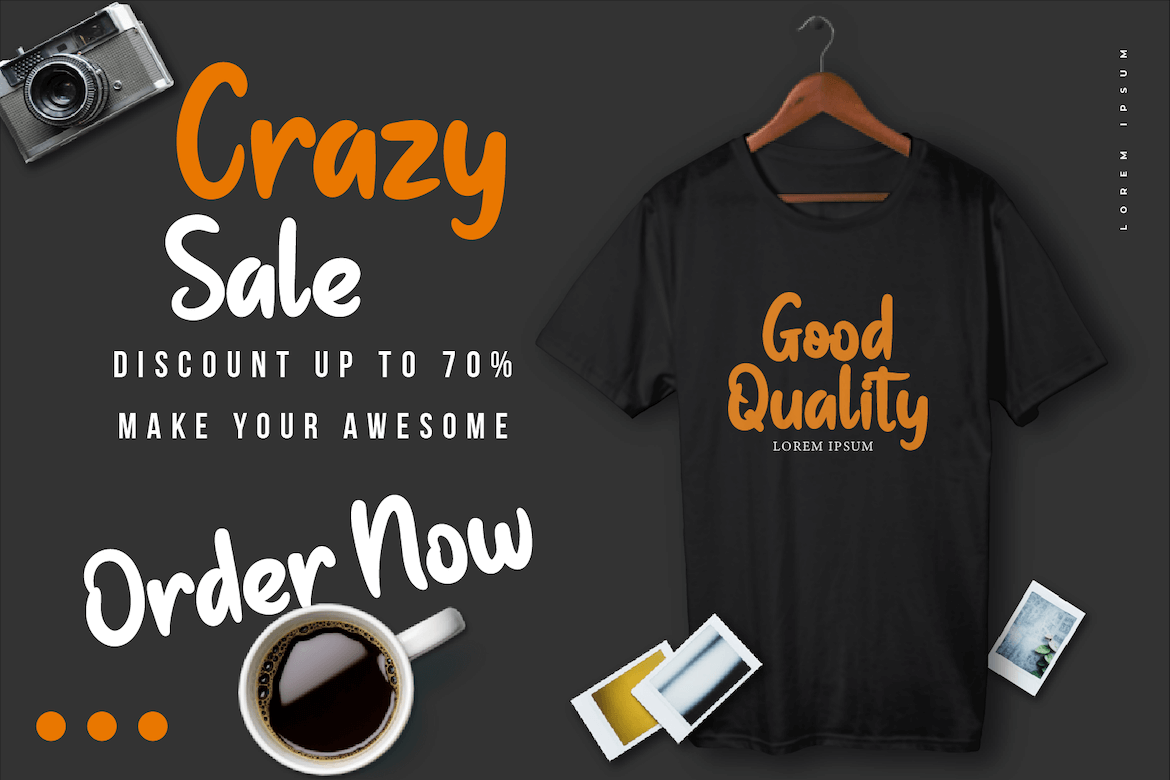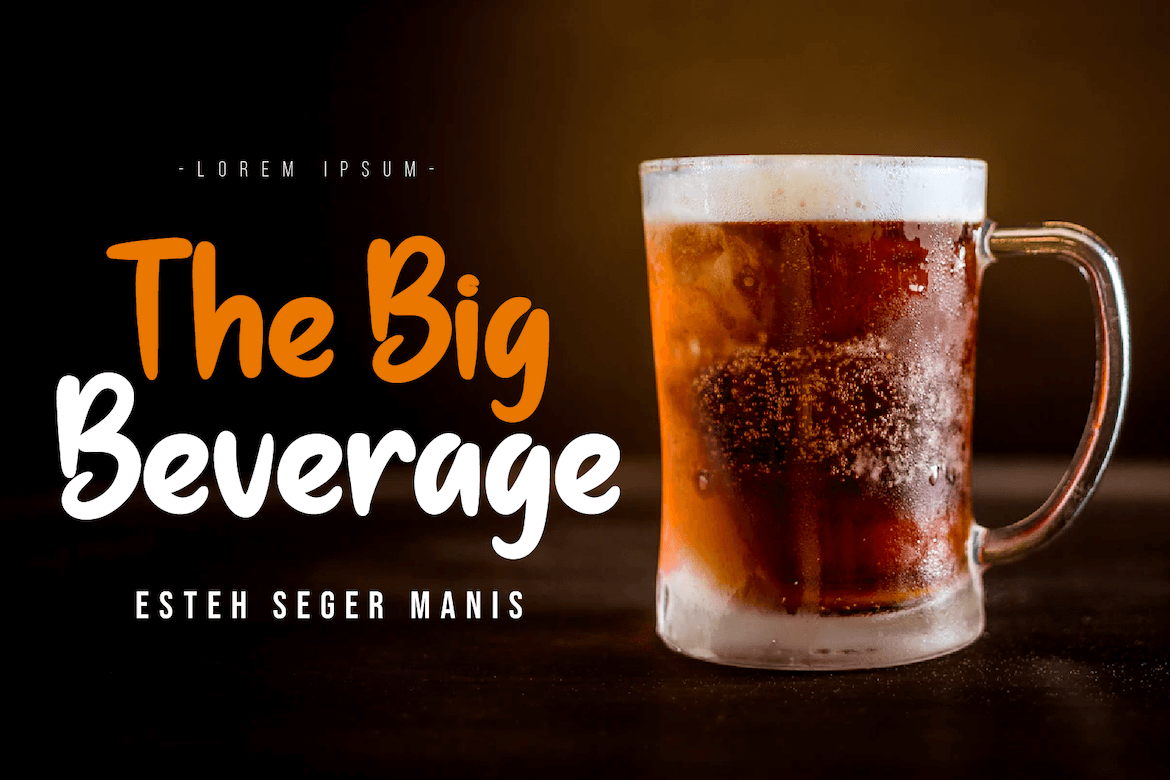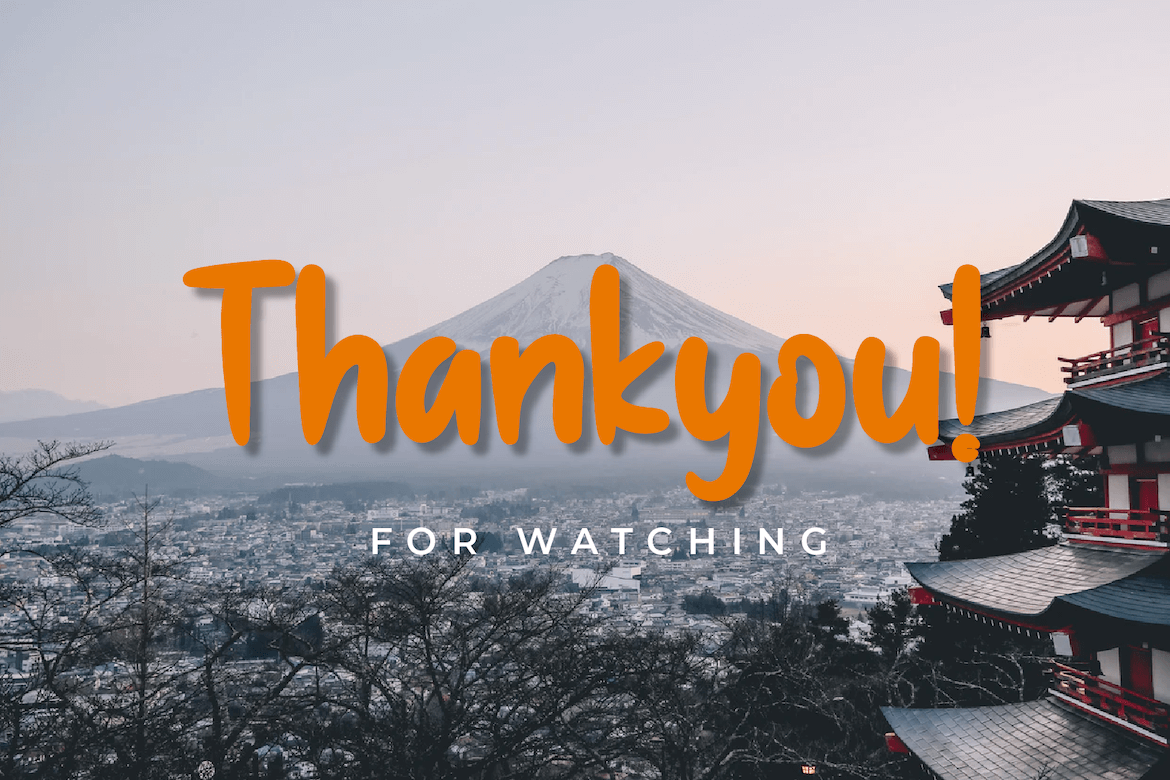
- Blossom Handwriting Font
Blossom is a sweet and flowing handwritten font. Fall in love with its incredibly versatile style and use it to create gorgeous wedding invitations, beautiful stationary art, eye-catching social media posts, and much more!
- Ligature
- Fonts include multilingual support for; Afrikaans, Albanian, Croatian, Czech, Danish, Dutch, English, Estonian, Finnish, French, German, Hungarian, Italian, Norwegian, Polish, Portuguese, Slovak, Slovenian, Spanish, Swedish